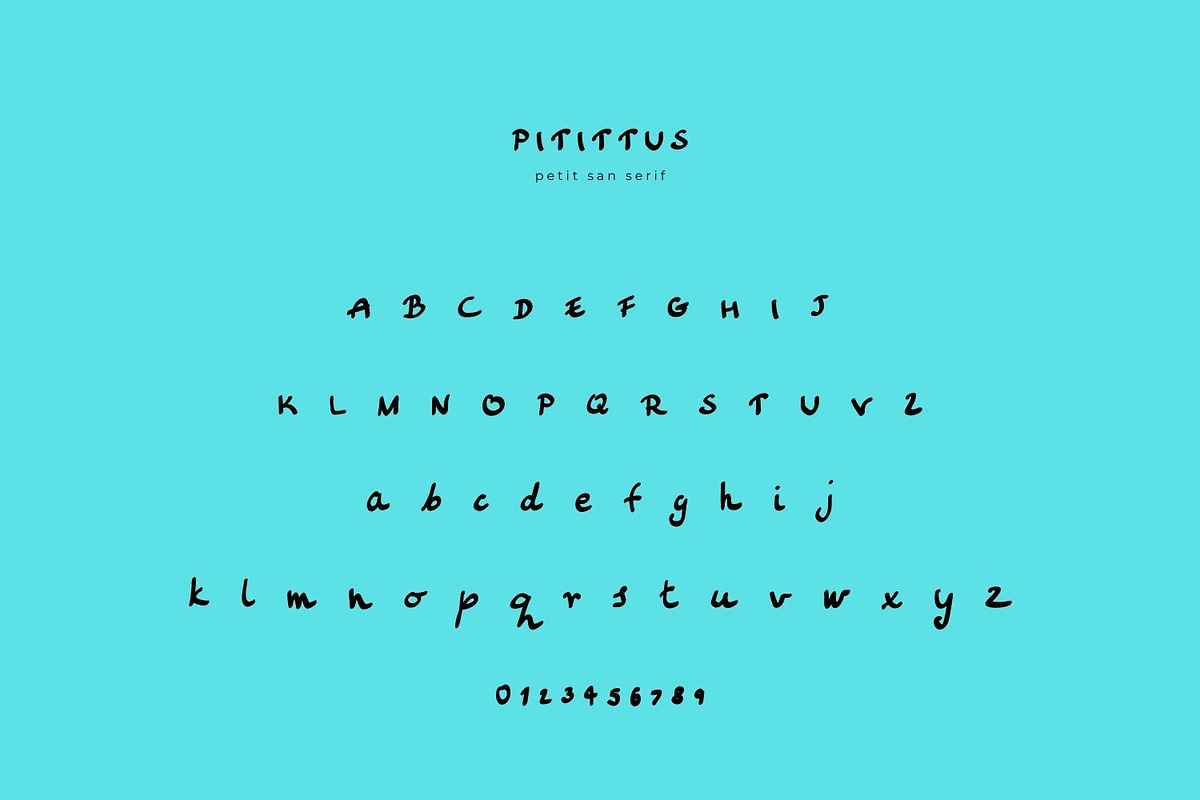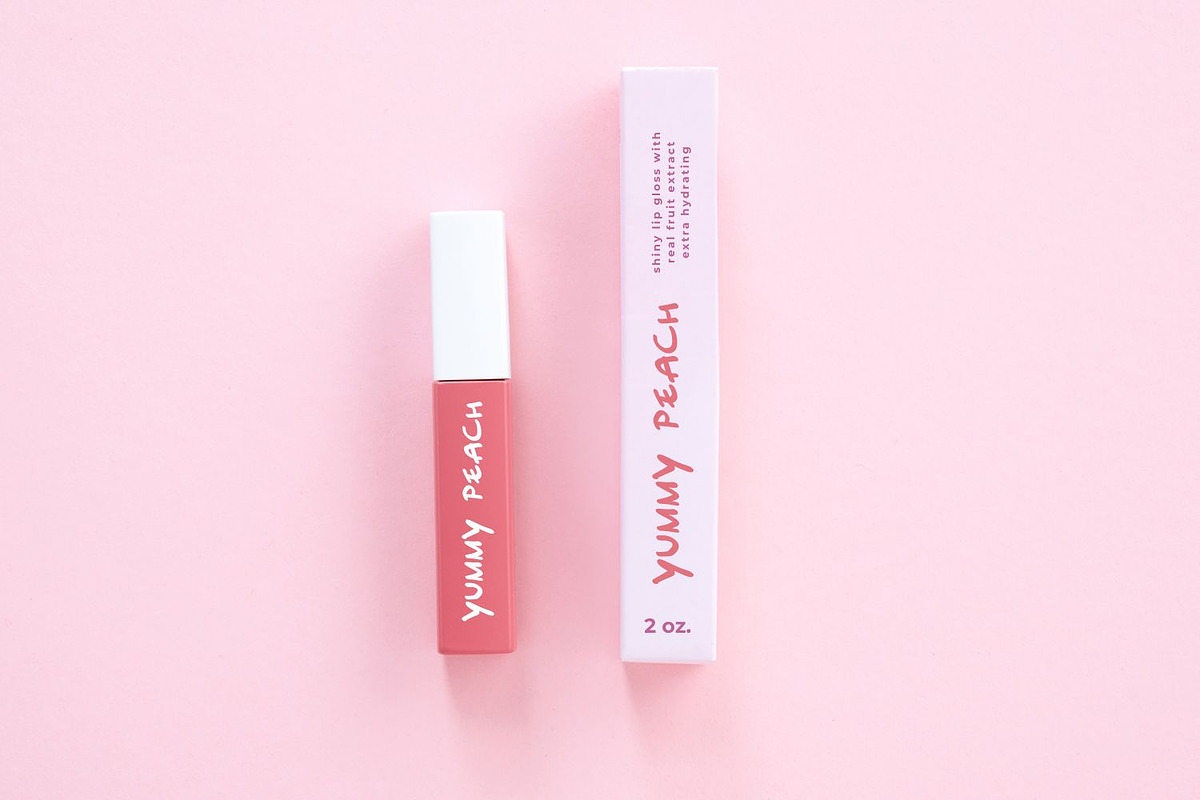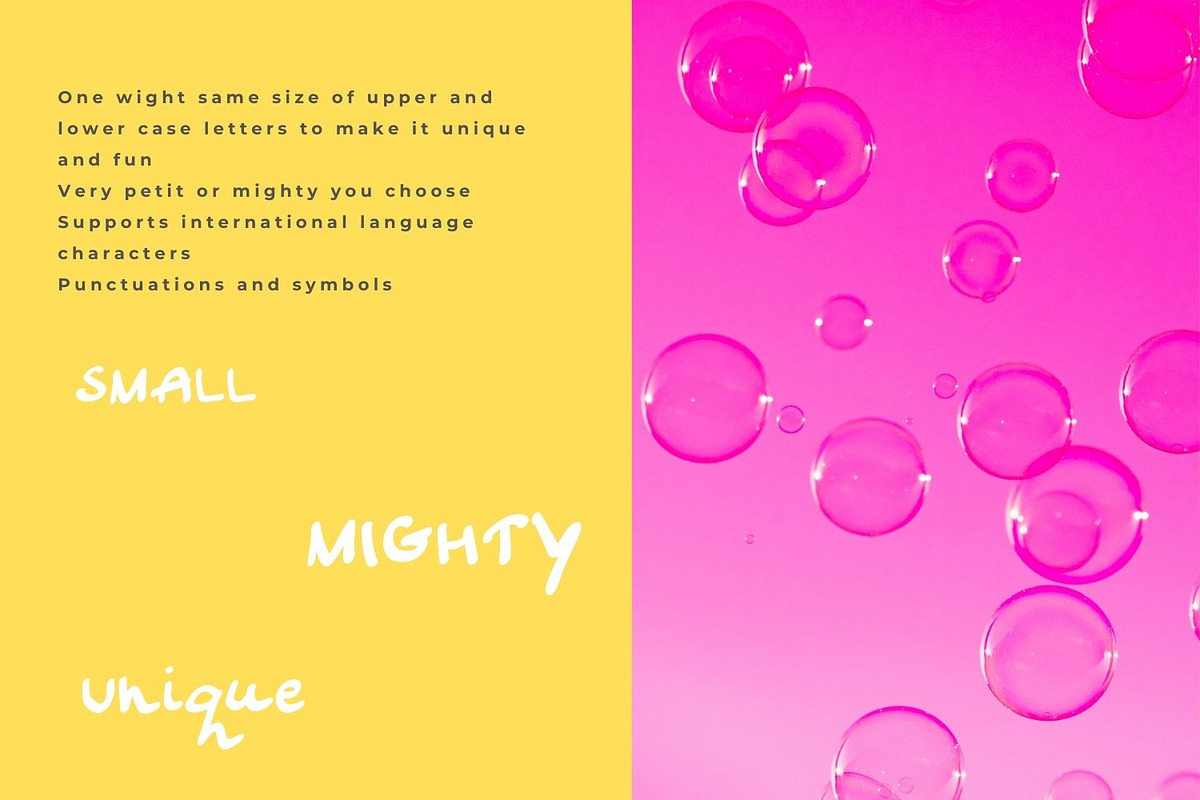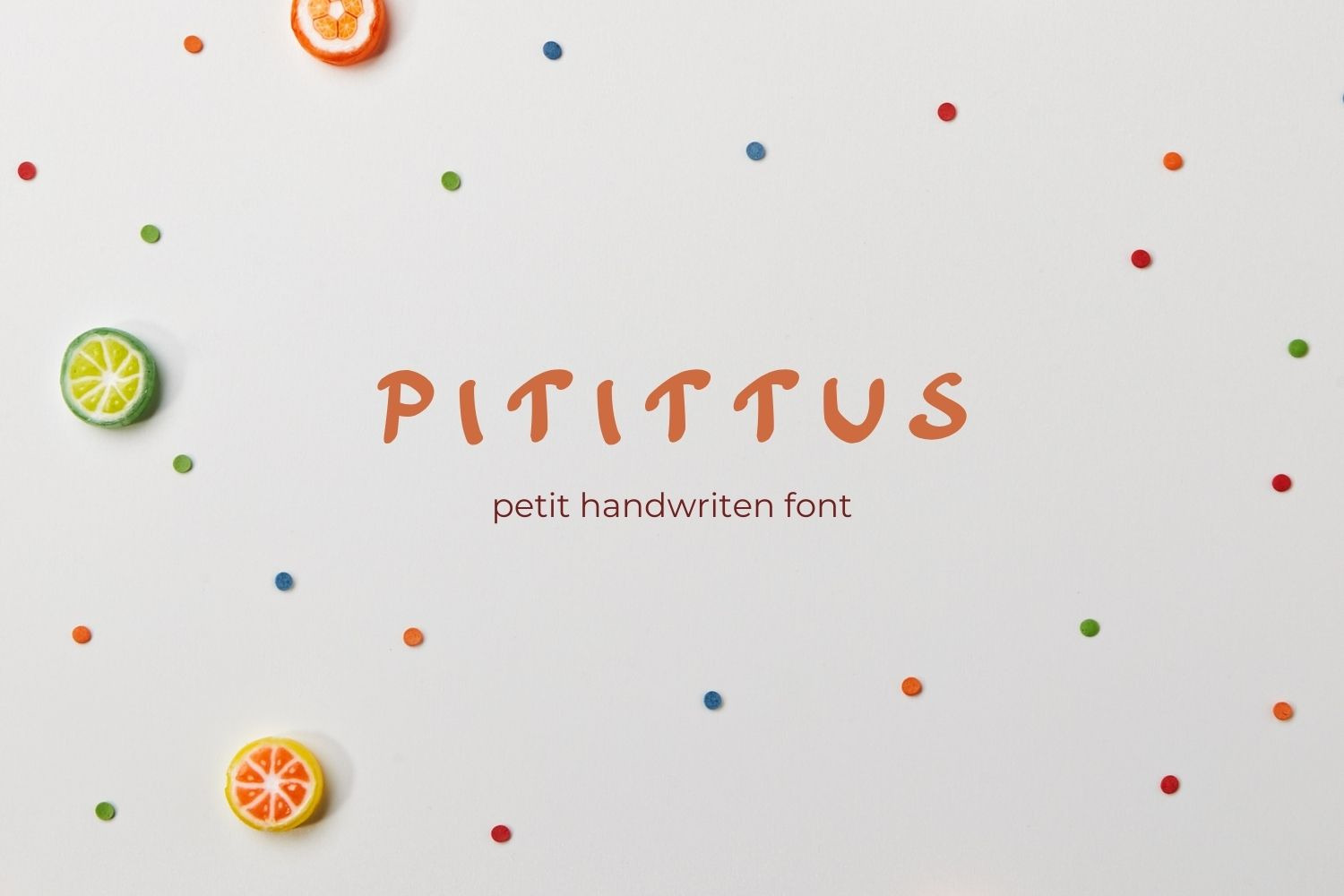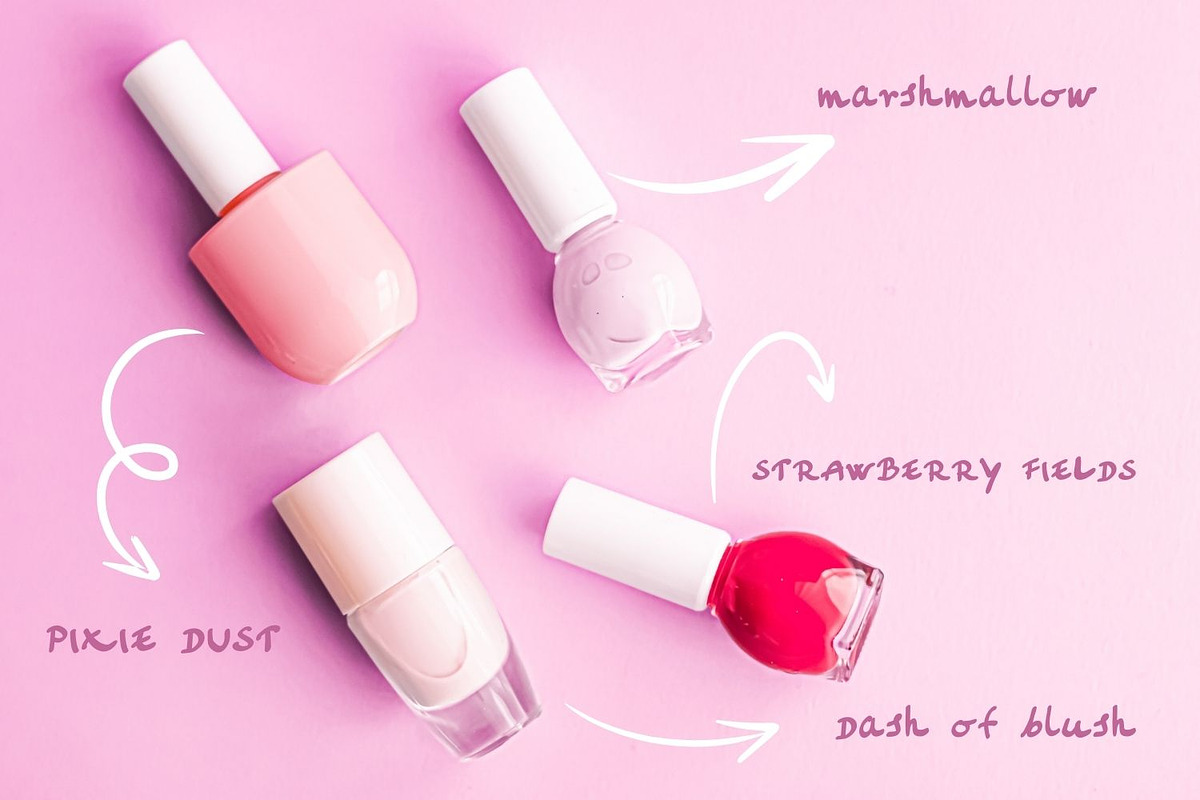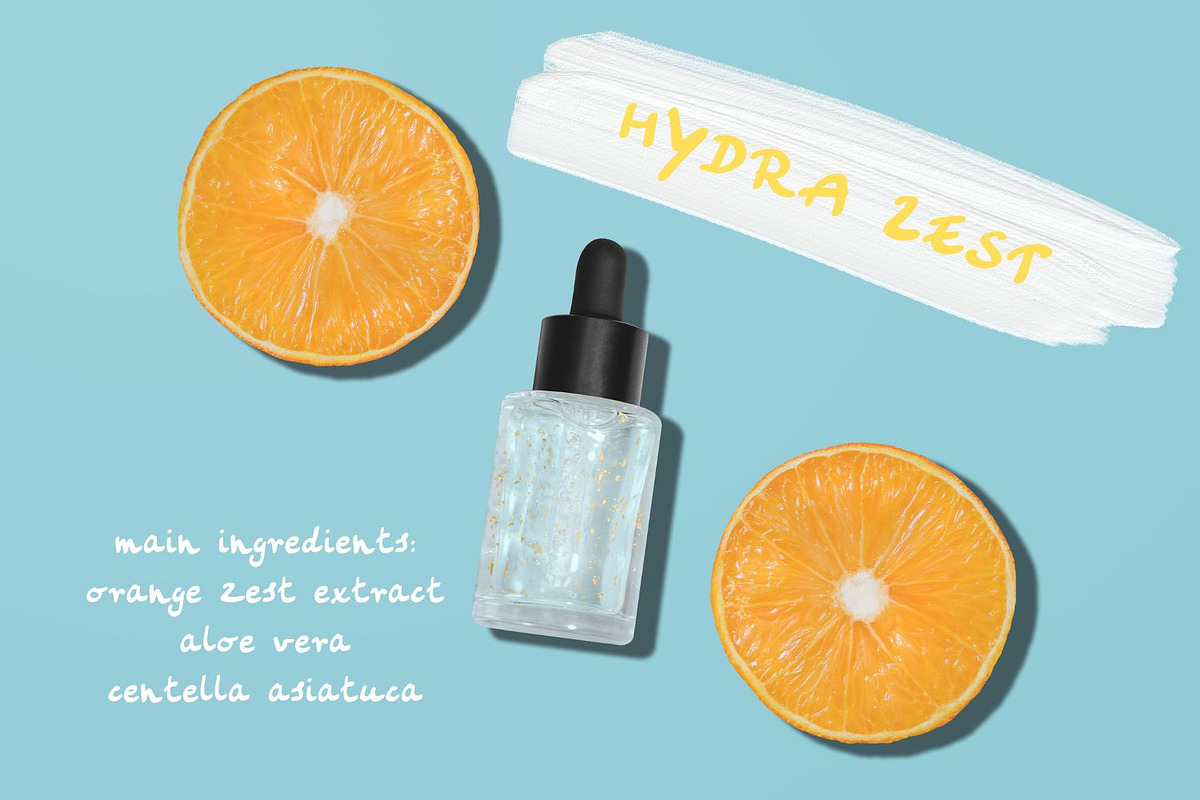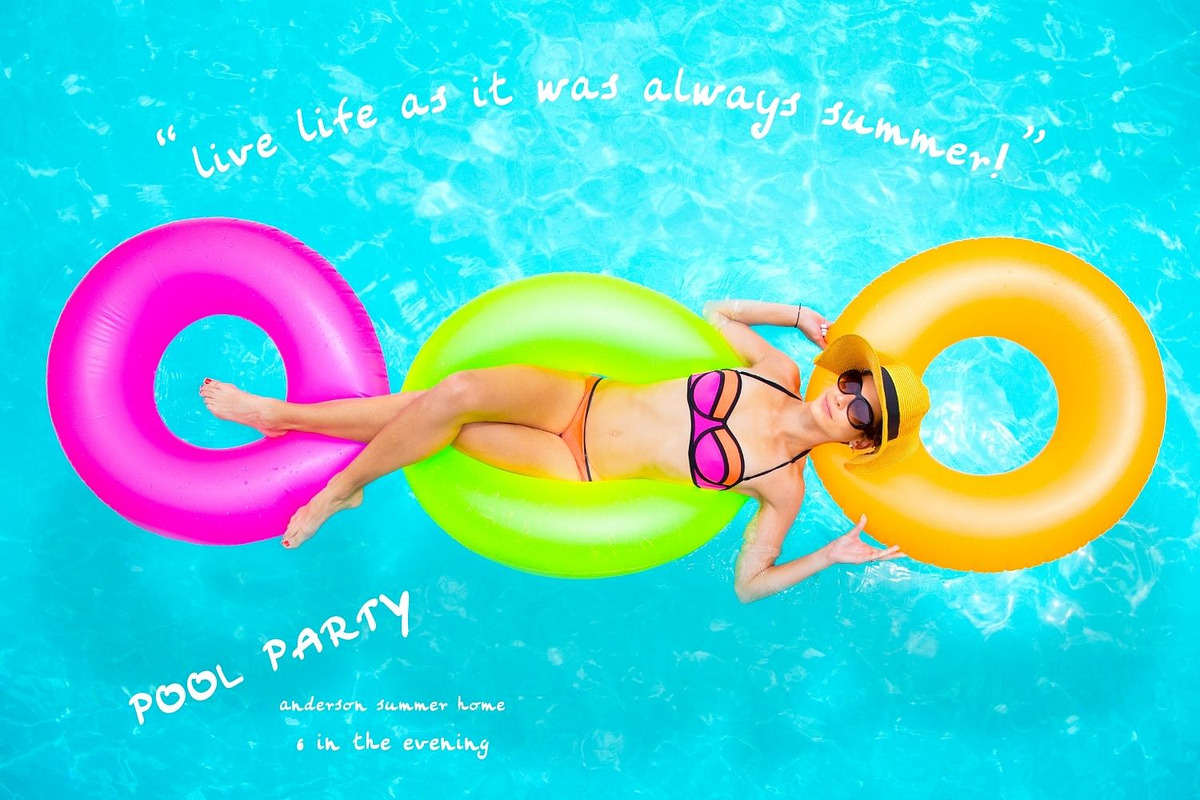
PITITTUS handwritten sans serif font
Pitittus Handwritten Font
Introducing Pitittus, a charming handwritten font featuring very small, uniform letters that add a touch of playfulness and simplicity to your designs. Perfect for those who appreciate the beauty of petite, delicate script, Pitittus is versatile and ideal for a variety of creative projects.
- Uniform Height: All letters are designed to be the same height, creating a clean and consistent look.
- Handwritten Charm: Captures the essence of natural handwriting with a refined, delicate touch.
- Multilingual Support: Includes a wide range of international characters to suit various languages.
- Comprehensive Character Set: Features numbers, special characters, and punctuation, ensuring complete functionality.
- Versatile Use: Perfect for invitations, greeting cards, logos, social media graphics, and more.
Enhance your projects with the subtle elegance of Petit. Its small, uniform letters bring a unique charm and sophistication to any design.